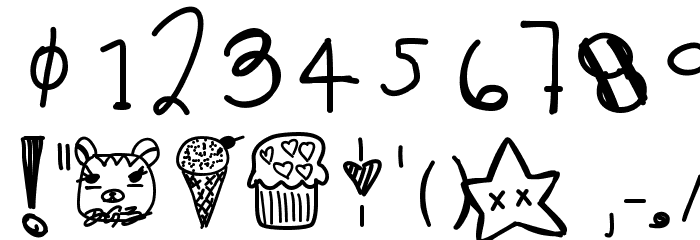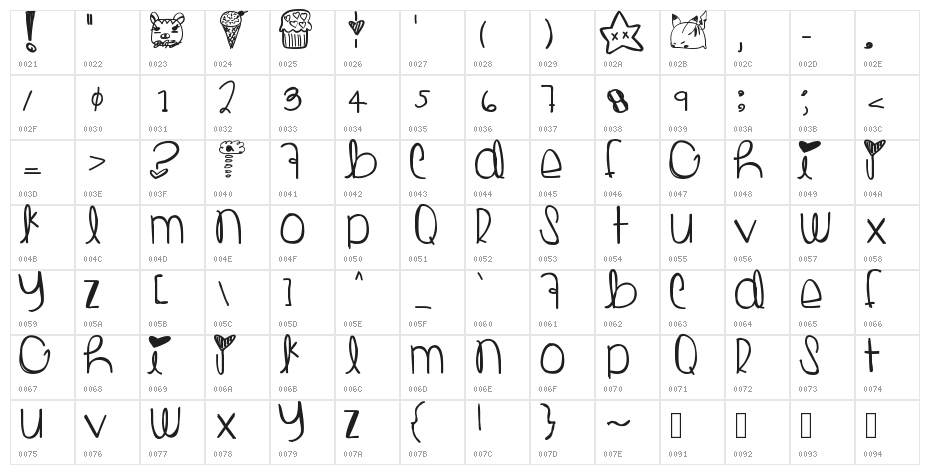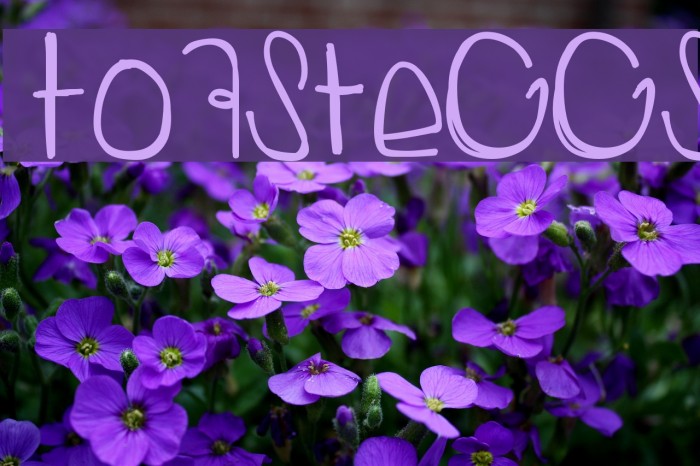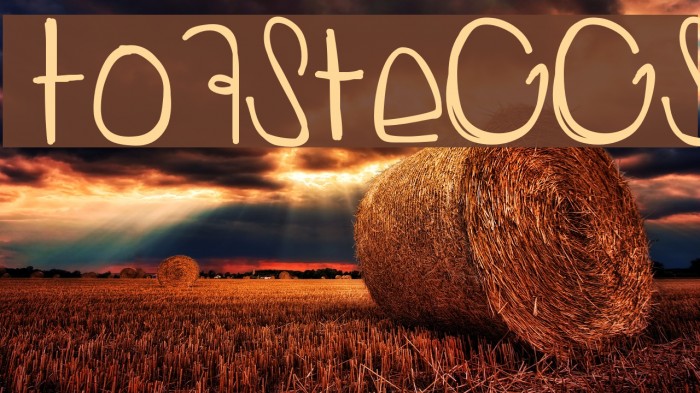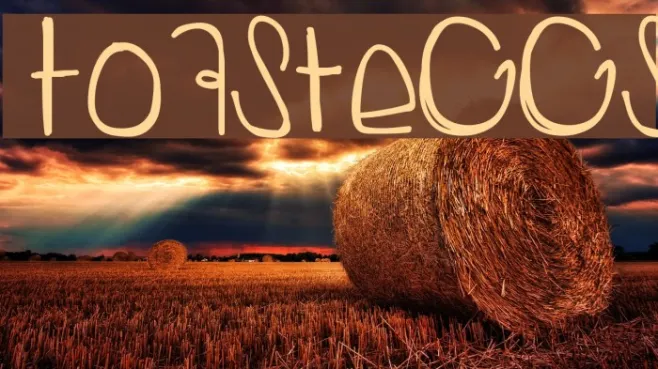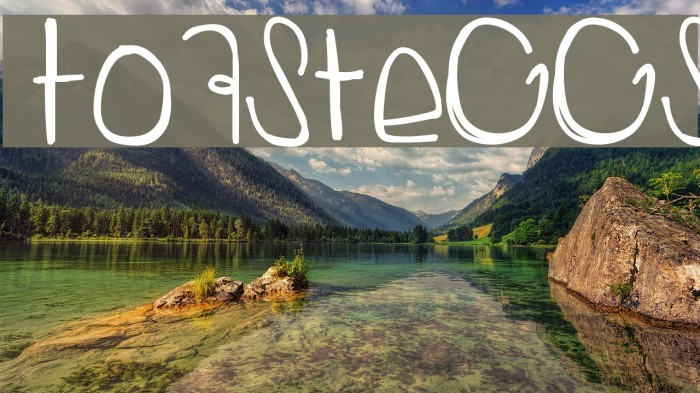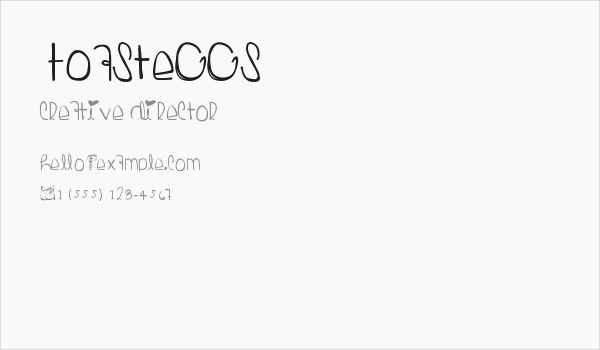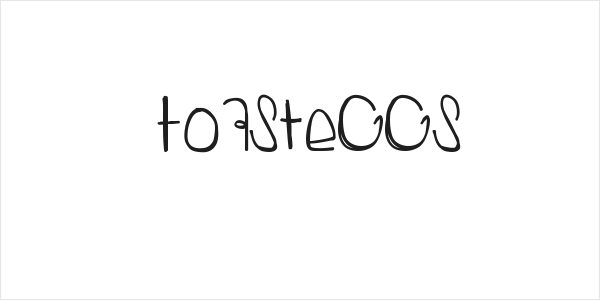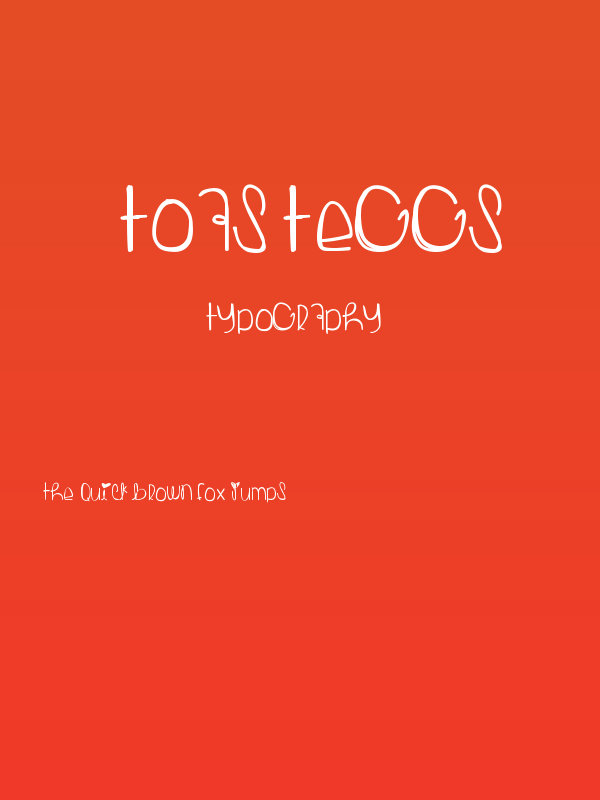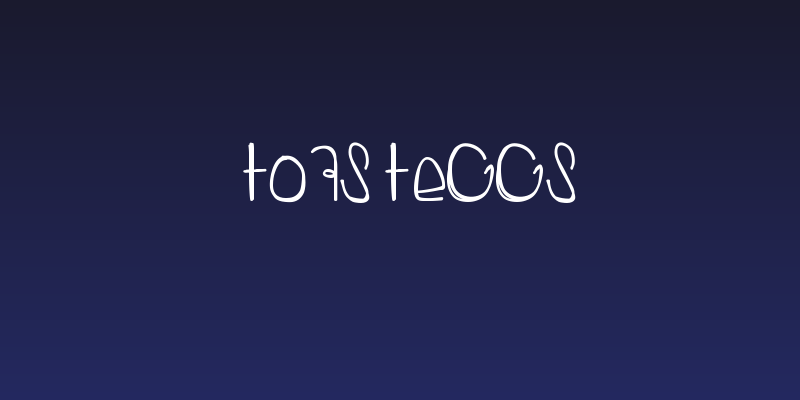
ToastEggs Font
ToastEggs Description
This playful and whimsical font features a handwritten style with a quirky and fun aesthetic. The characters are uniquely crafted with a mix of rounded and angular elements, giving it a lively and energetic feel. The uppercase and lowercase letters maintain a consistent style, with some letters incorporating heart shapes and other decorative elements. The numbers and special characters continue this playful theme, with some characters resembling doodles or sketches. This font is perfect for projects that require a lighthearted and creative touch.
| Proposed Projects | Ideal for children's books, greeting cards, playful branding, and creative posters. |